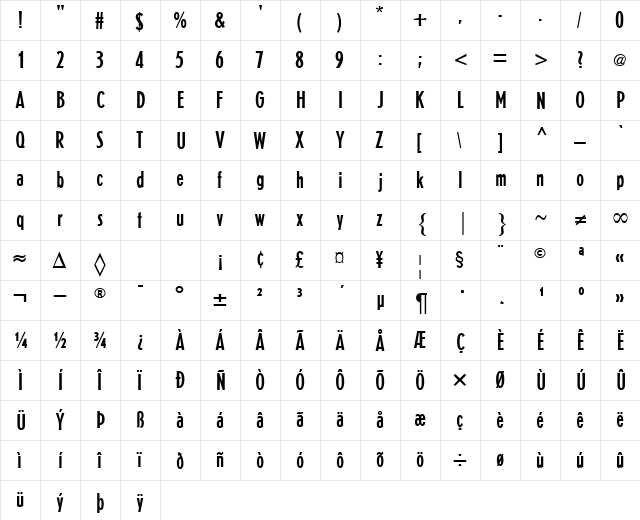
Erbar Regular
Design Context for Erbar Typeface
Erbar is a composed and adaptable typeface that performs quietly and consistently across a wide range of design contexts.